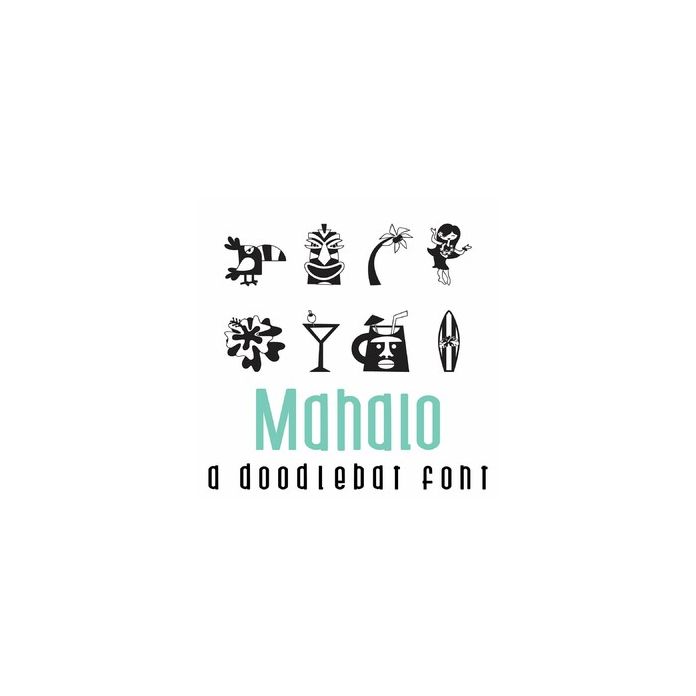
This fun doodlebat font features 26 Hawaiian and Tribal themed images. Perfect for cards, crafts, gifts, decor, scrapbook pages, planner stickers and more!